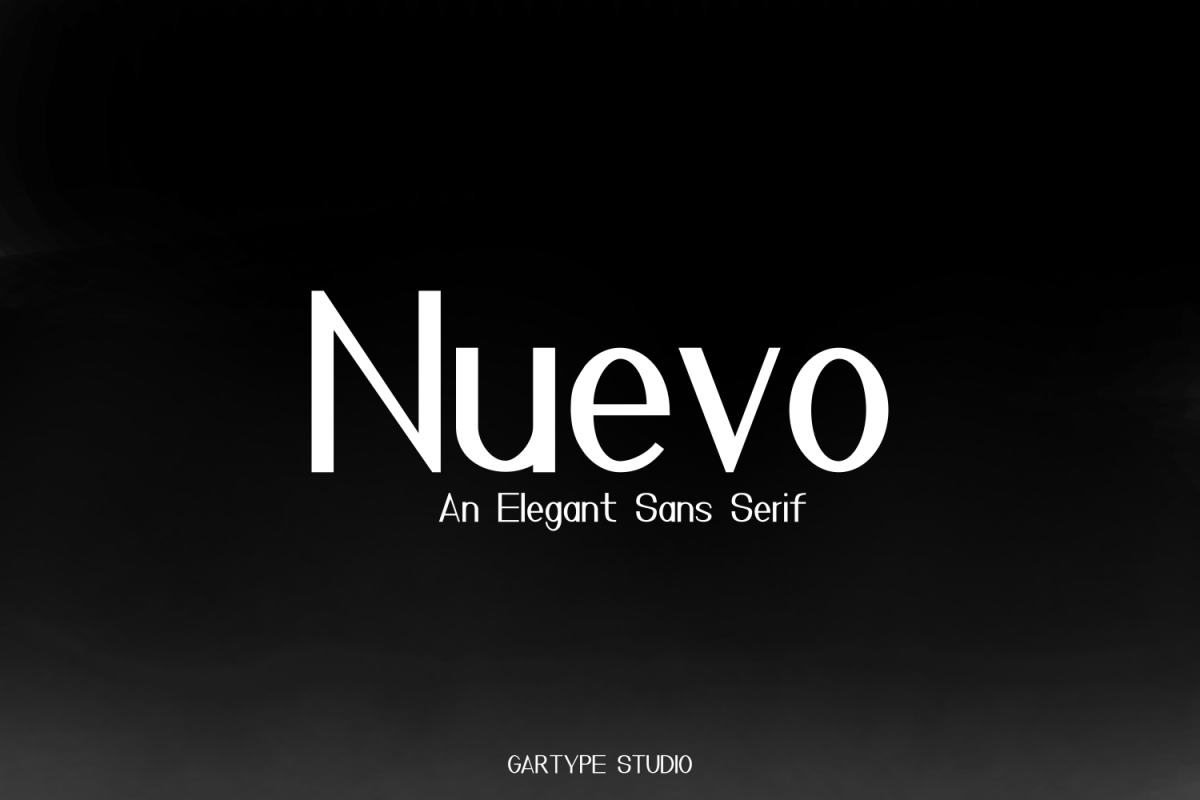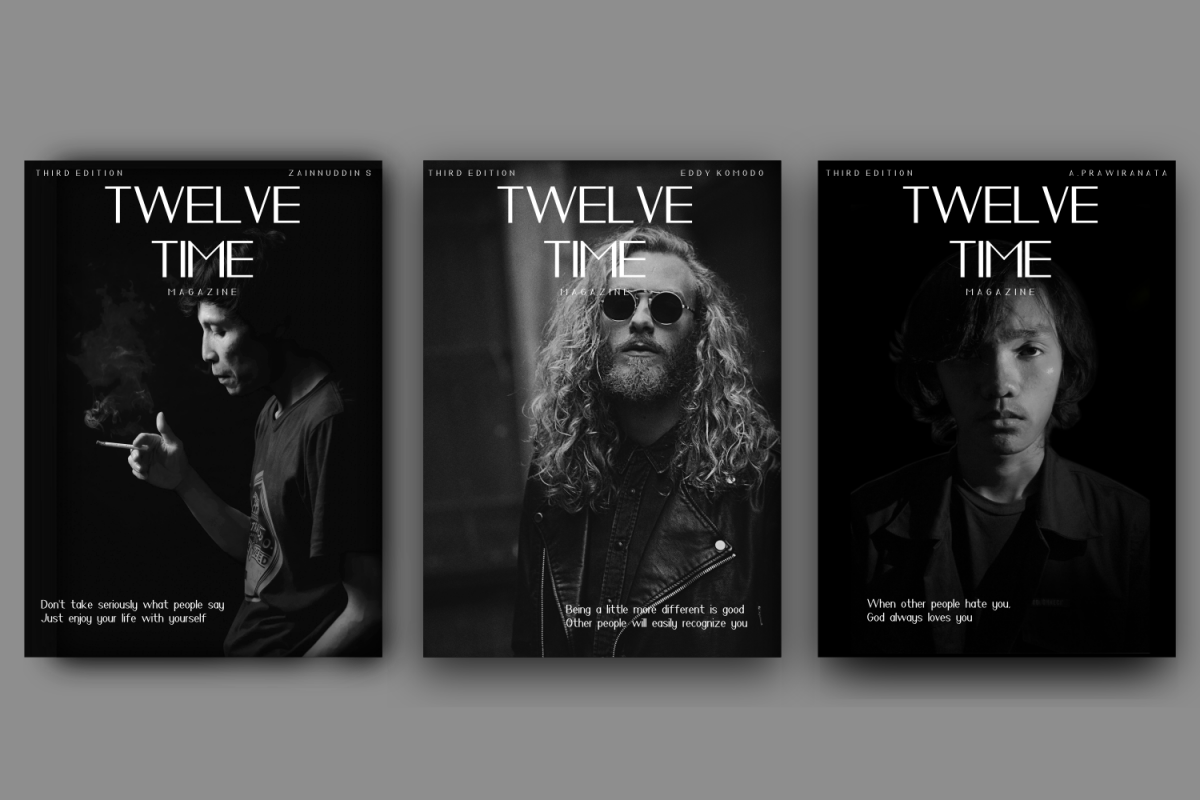
Nuevo - Elegant Sans Serif
Nuevo is a new elegant sans serif with elegant style which will help you make your needs as elegant as magazine covers,poster,signature,logo,tagline,title,and many more.